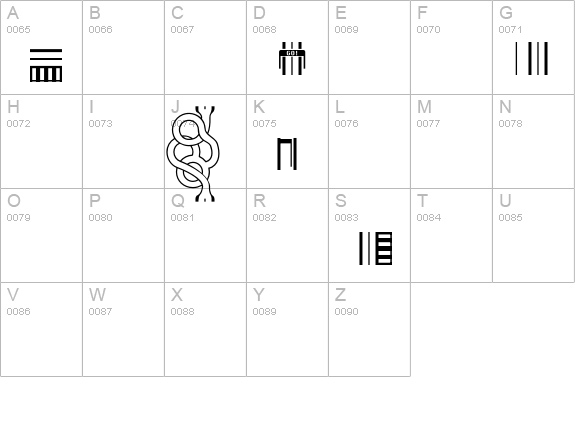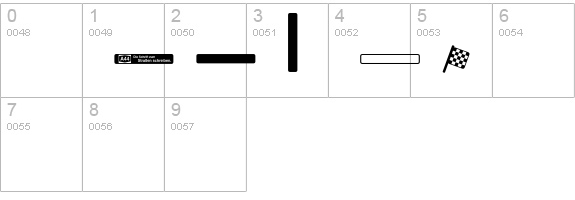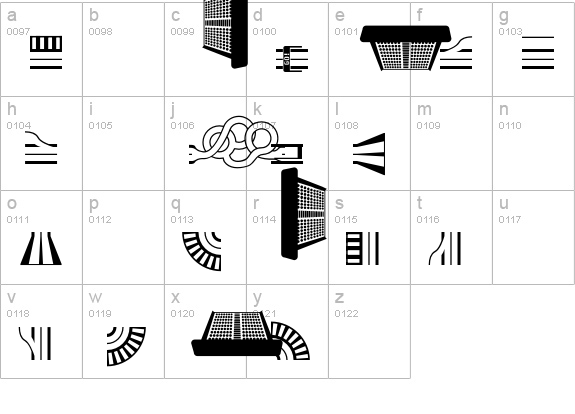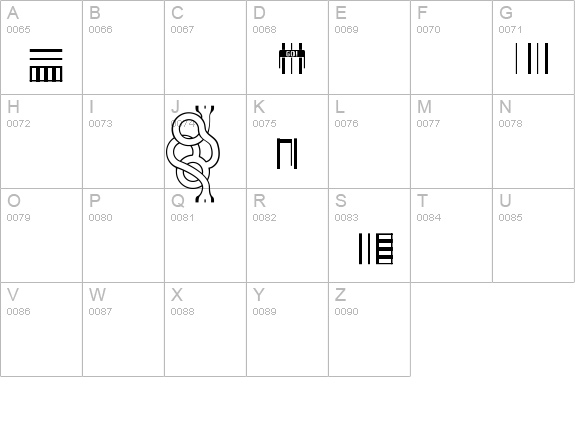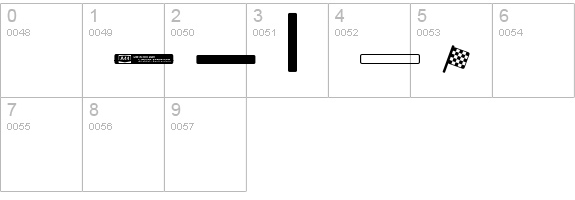
A44-racings Font Details
A44-racings font is a bold and dynamic typeface designed for speed and excitement. Inspired by the adrenaline-pumping world of racing, this font is perfect for capturing the fast-paced energy of the track. With its sleek lines and sharp angles, A44-racings font exudes a sense of power and motion. Whether you're creating posters, banners, or logos for a racing event, this font will make your designs stand out. Best of all, A44-racings font is completely free to download at FontsMarket.com. So go ahead and add a touch of speed and style to your projects with this thrilling typeface. Get your hands on A44-racings font today and let your creativity race ahead!